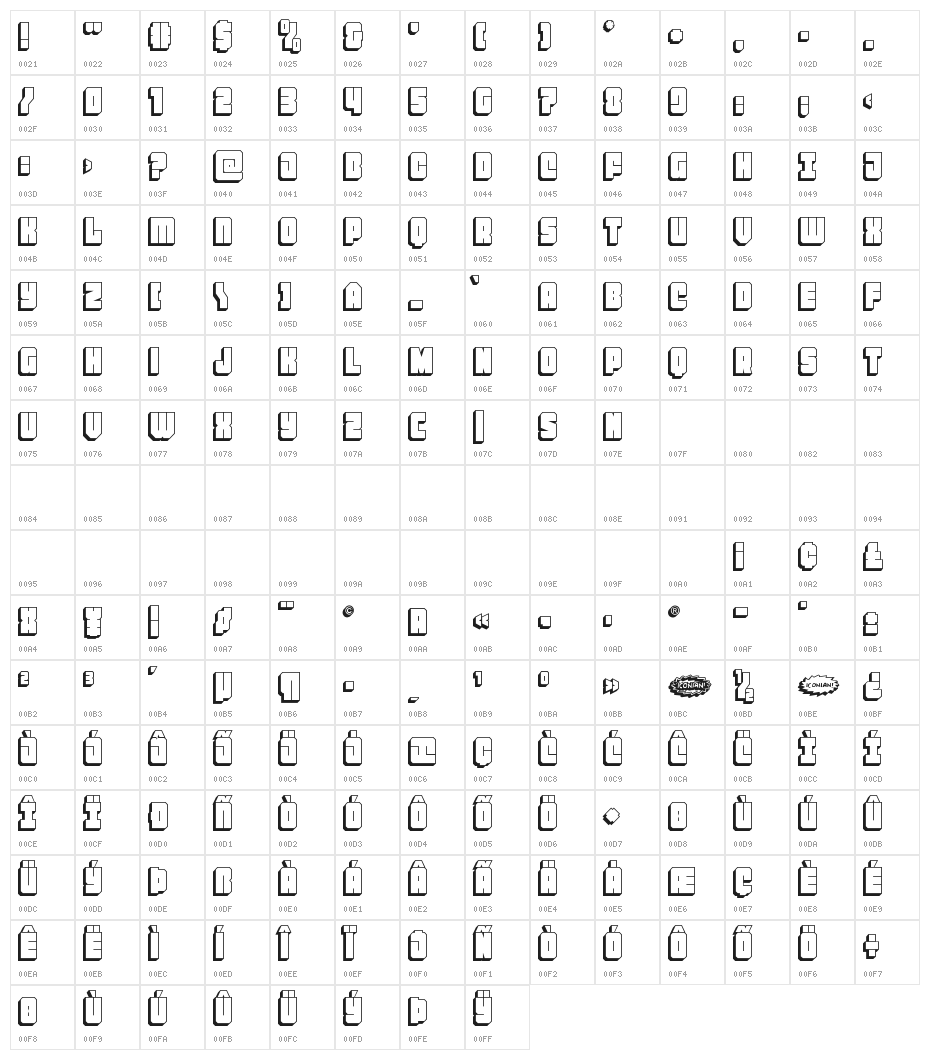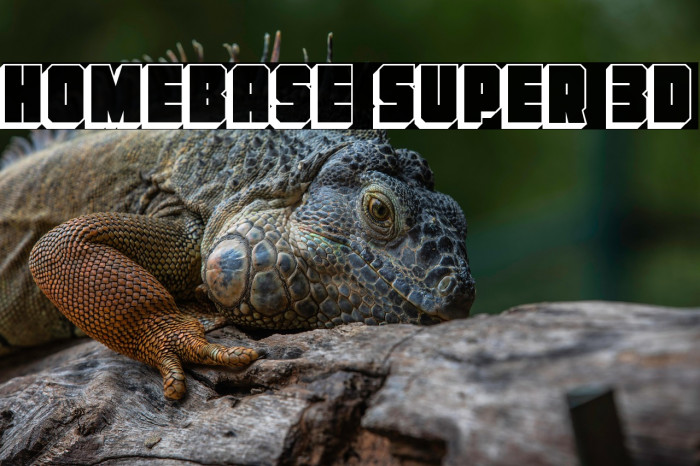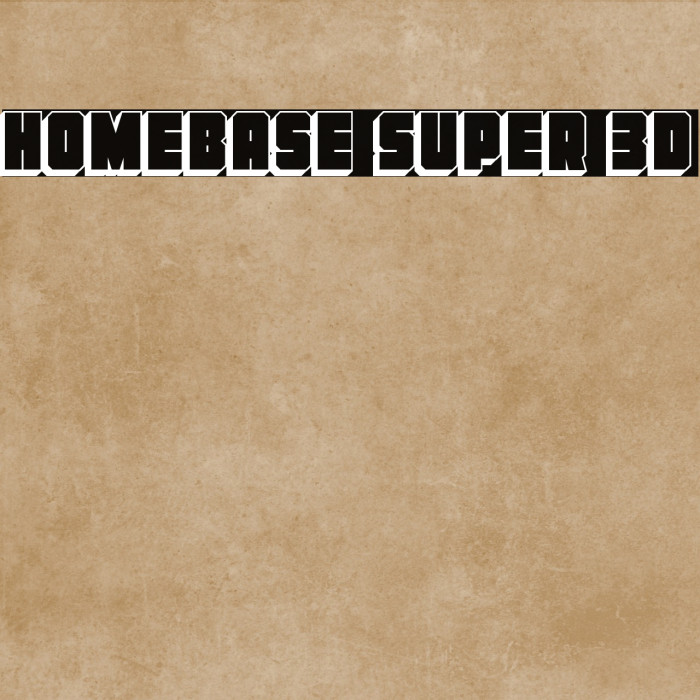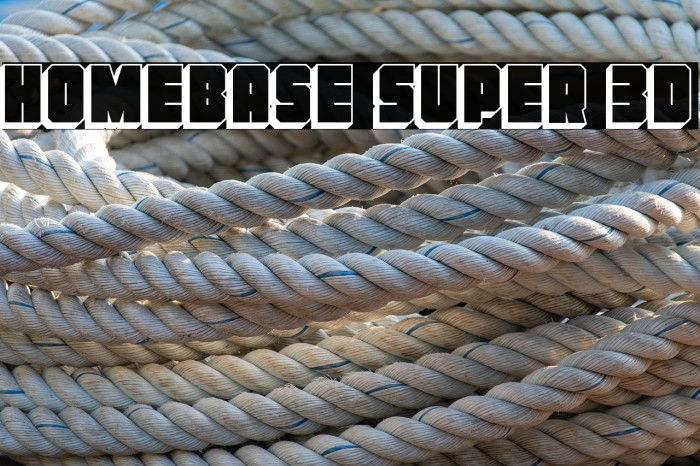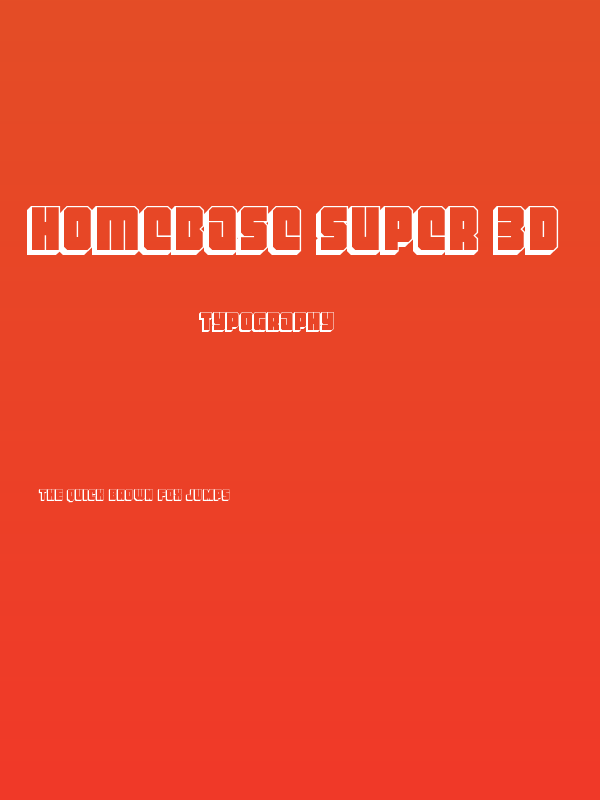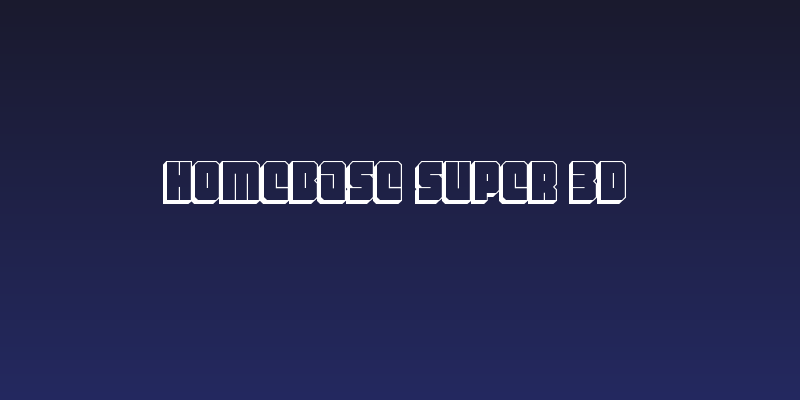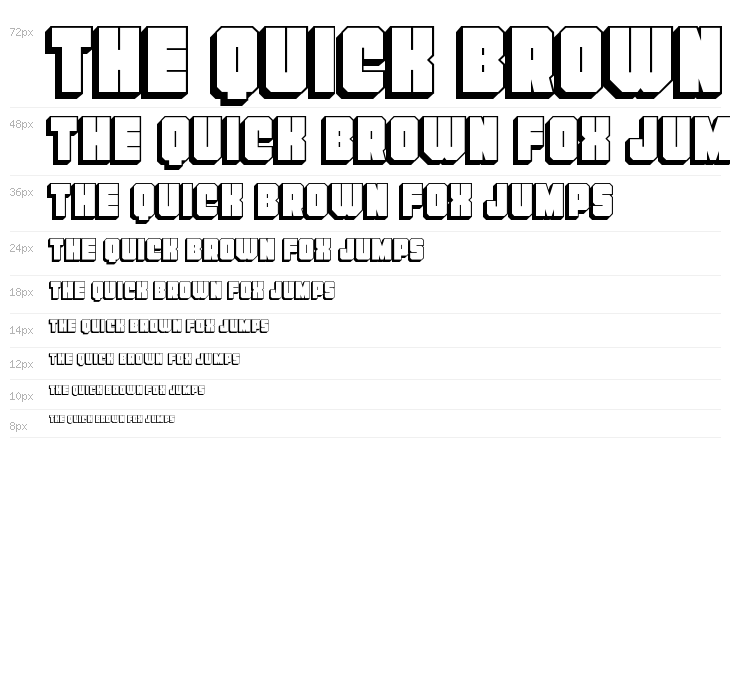
Homebase Super 3D Font
Homebase Super 3D Description
This font features a bold, three-dimensional design with a blocky, geometric style. The characters are outlined with a thick black shadow, giving them a striking and impactful appearance. The uppercase letters are uniform in height, while the numbers and special characters maintain the same bold aesthetic. The font's design is reminiscent of retro video game graphics, with a playful yet assertive presence. Its strong lines and angles make it highly legible, even from a distance, and the 3D effect adds depth and dimension, making it ideal for eye-catching displays.
| Overall Style | Retro, Decorative |
| Proposed Projects | Ideal for video game titles, posters, logos, and any project requiring a bold, eye-catching display font. |